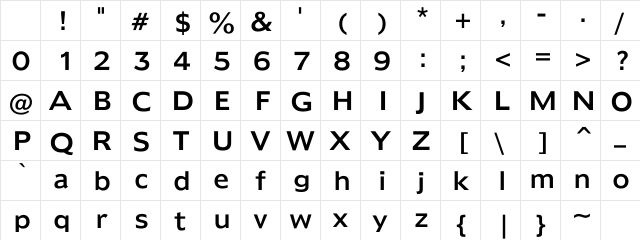
Complete South Central Heavy Regular glyph index. Displaying only characters natively supported by South Central Heavy Regular font.
South Central Heavy is a composed and adaptable typeface that performs quietly and consistently across a wide range of design contexts.